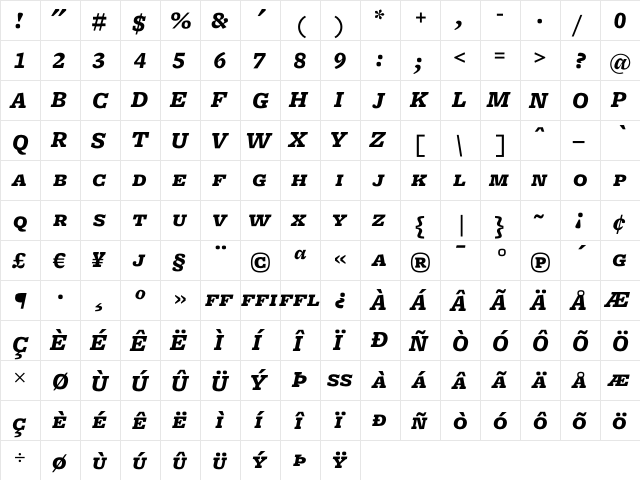
Freight Micro Black Italic SC
| Foundry | Joshua Darden & Phil's Fonts, Inc |
| Designer | Joshua Darden |
Design Context for Freight Typeface
Freight is a composed and adaptable typeface that performs quietly and consistently across a wide range of design contexts. The slanted form adds forward momentum and visual energy.
Pro Tip: Try Freight for annotation and caption copy alongside an upright companion — the contrast in angle creates a dynamic but ordered typographic system.